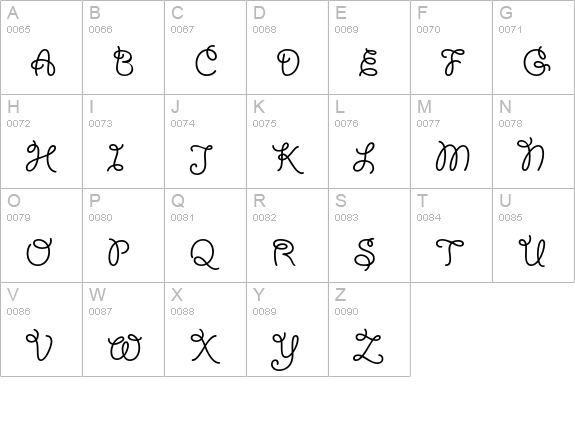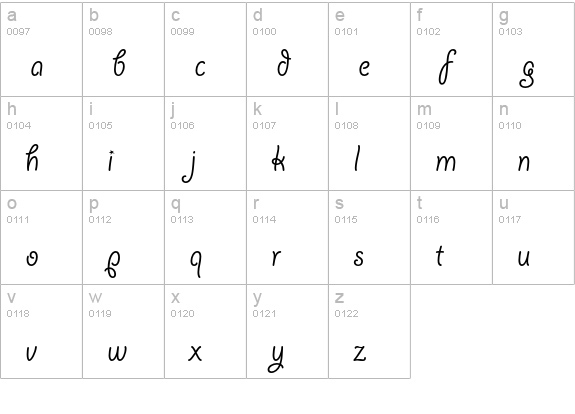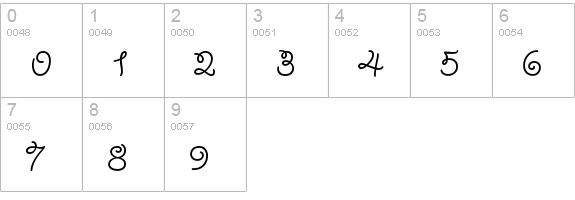
Giddyup Std Font Details
Giddyup Std is a whimsical and playful font that exudes a sense of fun and energy. Its unique style and quirky charm make it perfect for a variety of design projects, from invitations to posters to branding. The distinctive letterforms and irregular baseline give Giddyup Std a handcrafted feel that adds character and personality to any text. This delightful font is available for free download at FontsMarket.com, making it easily accessible to designers looking to add a touch of playfulness to their work. Whether you're designing a children's book, creating a logo for a creative business, or just looking to inject some fun into your designs, Giddyup Std is sure to delight and inspire. Let your creativity run wild with this free and versatile font!